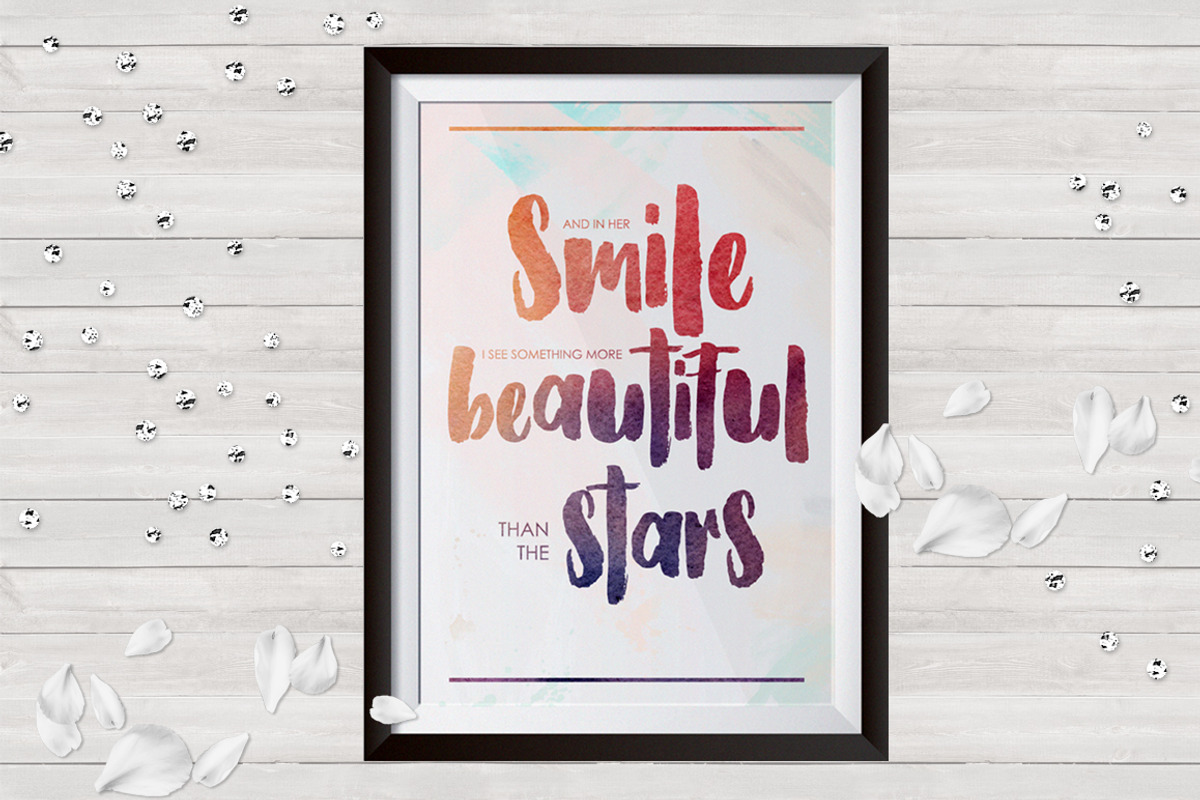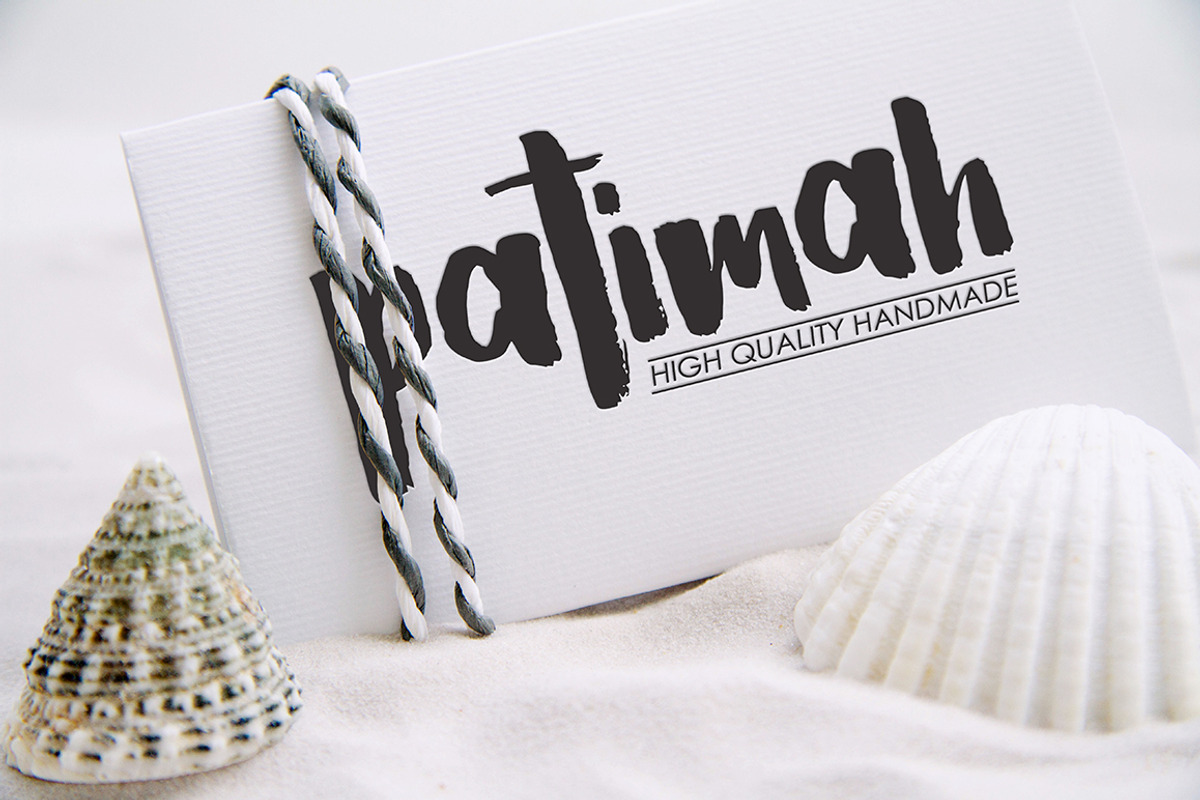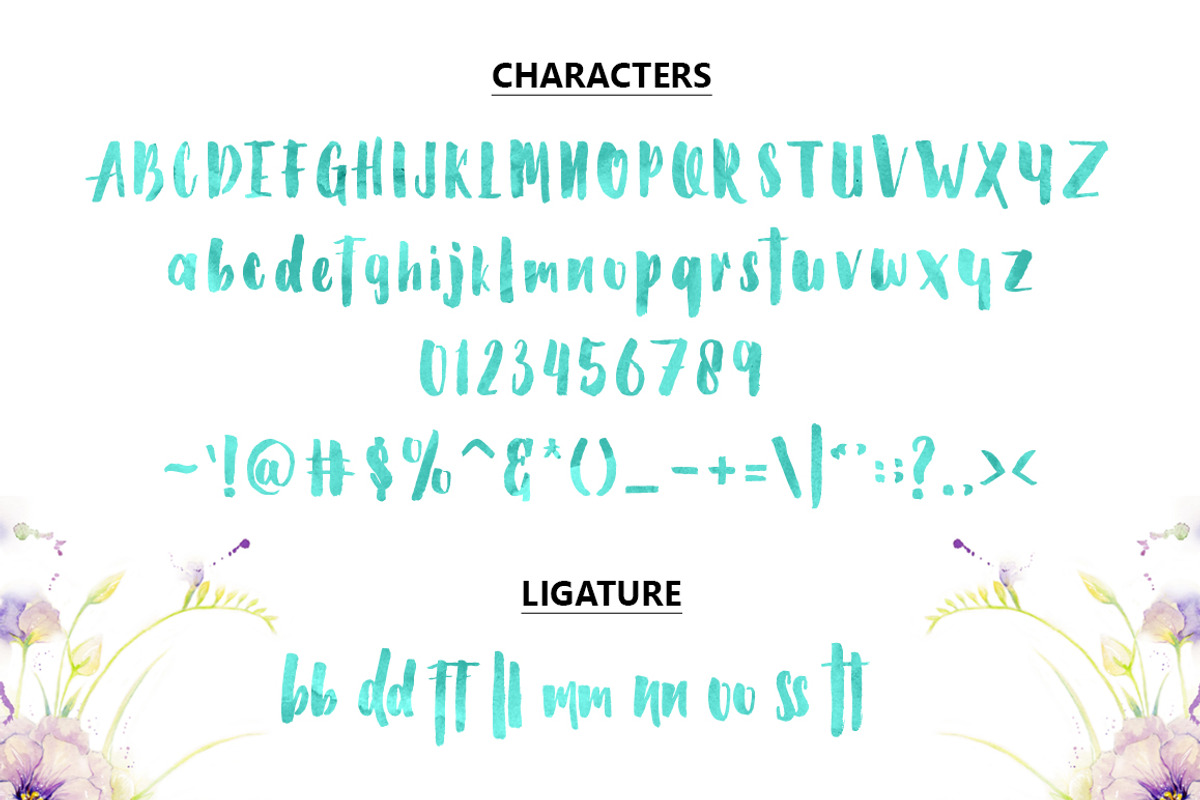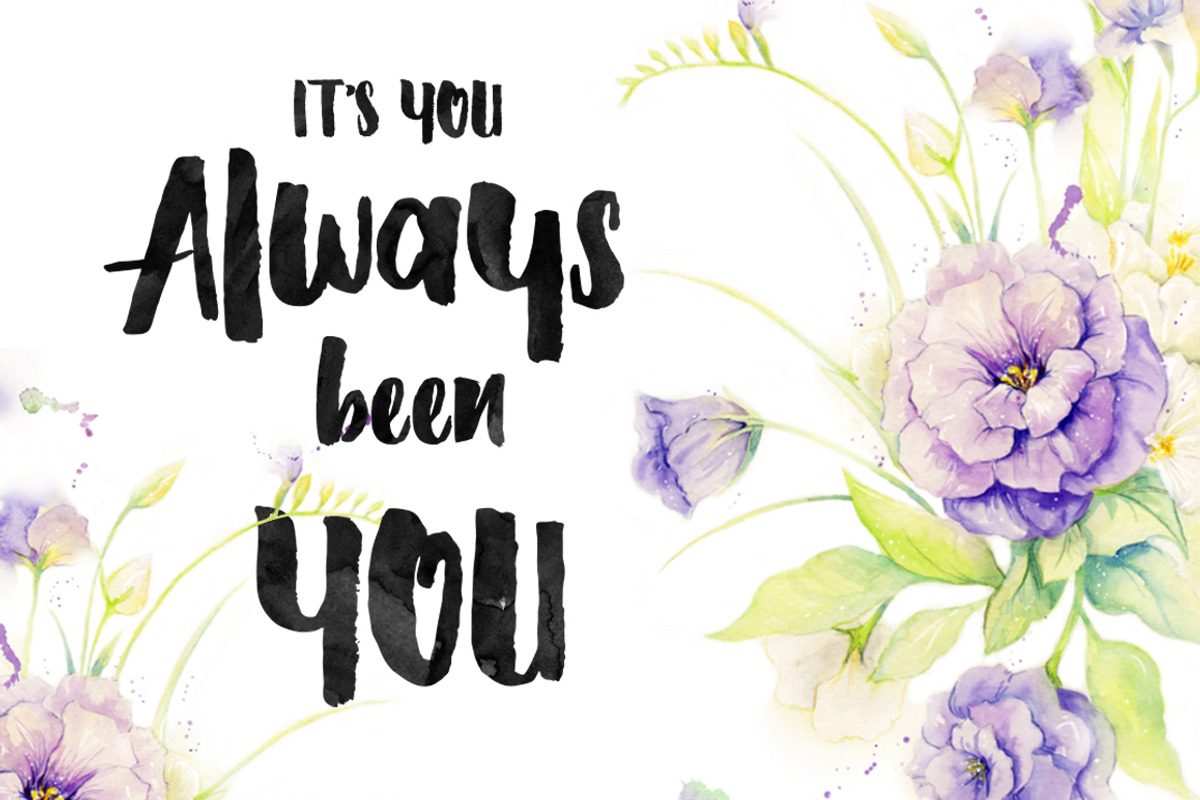
Barstilla Handpainted Typeface
Barstilla Handpainted Typeface by Republik Kreatif is a font selected for branding, posters, packaging, typography.
- Barstilla is a handpainted font, semi-script font with tight kerning, and a fun.
Why Barstilla Handpainted Typeface is worth a look
Barstilla Handpainted Typeface by Republik Kreatif fits naturally into Branding, posters, packaging, typography.